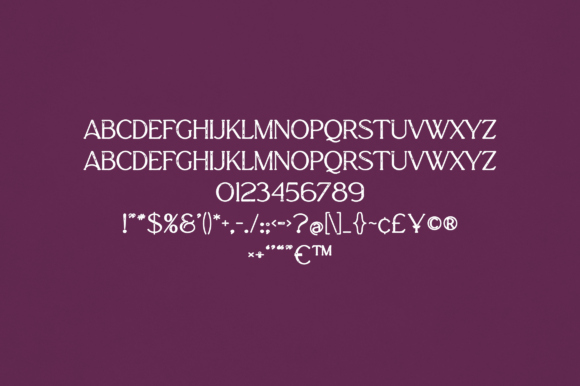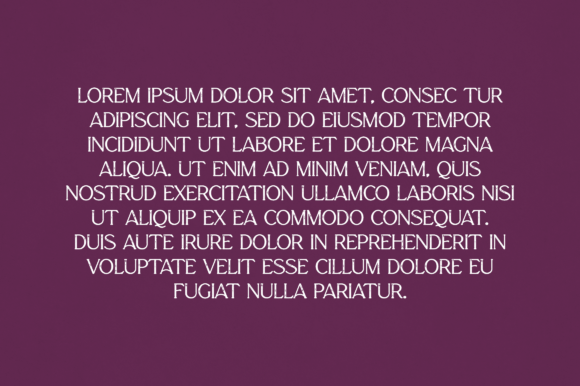
Dharma Font: Elevate Your Typography with Elegance and Versatility
Are you tired of using the same old fonts for your design projects? Look no further than Dharma Font, a stunning and versatile typeface that will take your typography to the next level. With its elegant and refined aesthetic, Dharma Font is perfect for designers and crafters looking to add a touch of sophistication to their work.
What Makes Dharma Font So Special?
Dharma Font is an elegant and versatile font that will make your typography truly unique. Its refined aesthetic and wide range of uses make it perfect for various design projects, from logos and branding to headlines and plain text. Whether you’re working on a branding project, home-ware design, product packaging, or magazine header, Dharma Font is sure to impress.
Dharma Font is a versatile typeface that can be used in a variety of design projects. Here are some ideas to get you started:
- Branding projects: Use Dharma Font to create a unique and memorable logo or brand identity that will set you apart from the competition.
- Home-ware designs: Add a touch of elegance to your home-ware designs, such as invitations, menus, and packaging.
- Product packaging: Make your product stand out on store shelves with Dharma Font’s sophisticated and refined aesthetic.
- Magazine headers: Use Dharma Font to create eye-catching headlines and titles that will draw readers in.
- Text overlays: Add a stylish text overlay to any background image using Dharma Font.
Why Choose Dharma Font?
So why choose Dharma Font over other fonts on the market? Here are just a few reasons:
- Elegant and refined: Dharma Font has a sophisticated aesthetic that will elevate your typography and add a touch of elegance to your design projects.
- Versatile: Dharma Font can be used in a wide range of design projects, from logos and branding to headlines and plain text.
- Unique: Dharma Font is a unique typeface that will help you stand out from the competition and make your design projects truly memorable.
Tips for Using Dharma Font
Here are a few tips for getting the most out of Dharma Font:
- Experiment with different sizes and styles: Dharma Font comes in a range of sizes and styles, so don’t be afraid to experiment and find the one that works best for your design project.
- Pair with other fonts: Dharma Font pairs well with other fonts, so try combining it with a bold font for headlines or a sans-serif font for body text.
- Use it sparingly: While Dharma Font is a beautiful typeface, it can be overwhelming if used too much. Use it sparingly to create a focal point in your design.